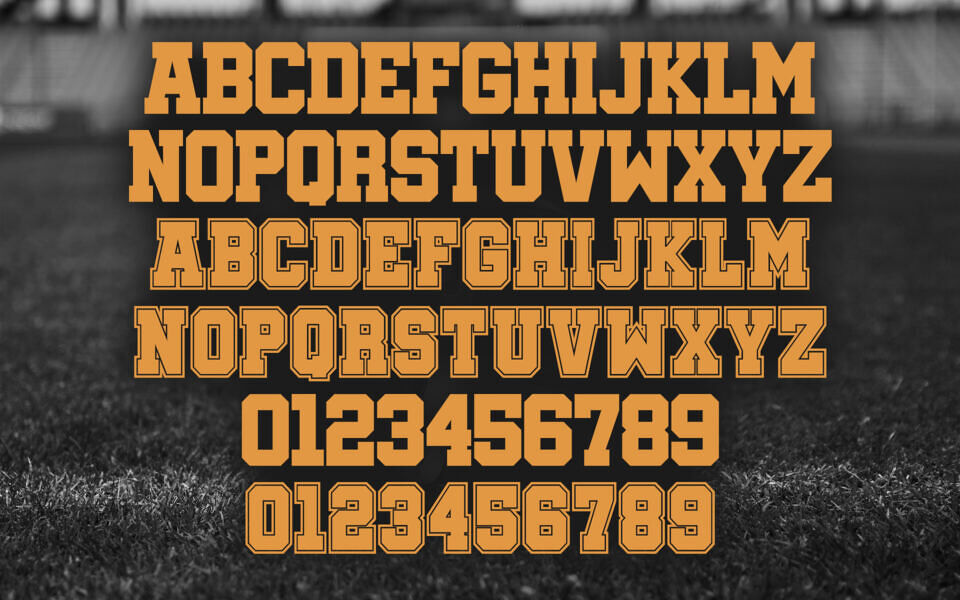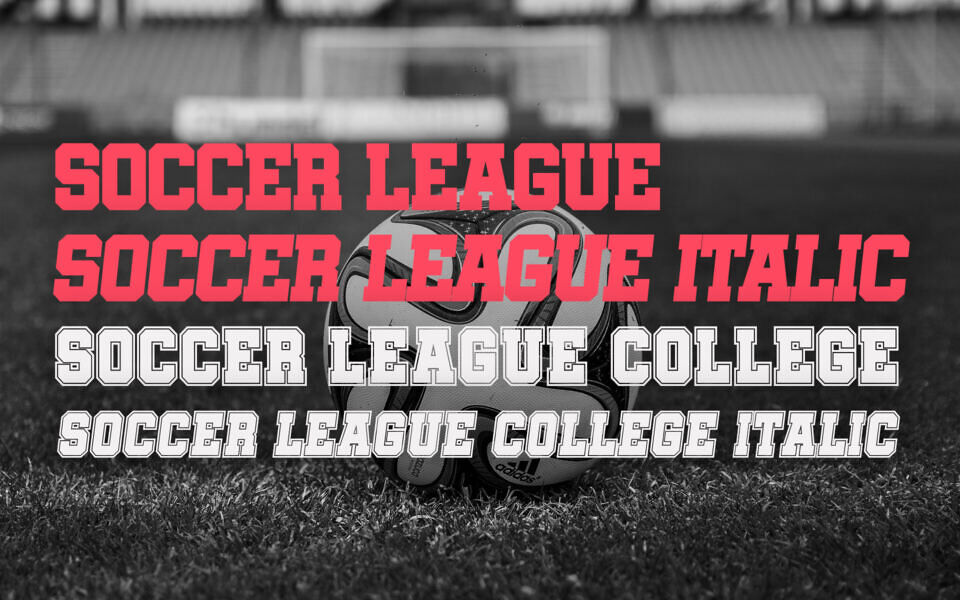
Soccer League Font Family
Soccer League is the MVP of athletic typefaces, built to bring the high-octane energy of the championship pitch to your screen. With its heavy, slab-serif architecture and sharp octagonal corners, it perfectly captures the classic varsity swagger found on collegiate jerseys and stadium banners.
Includes Soccer League Regular, Soccer League Regular Italic, Soccer League College, Soccer League College Italic.